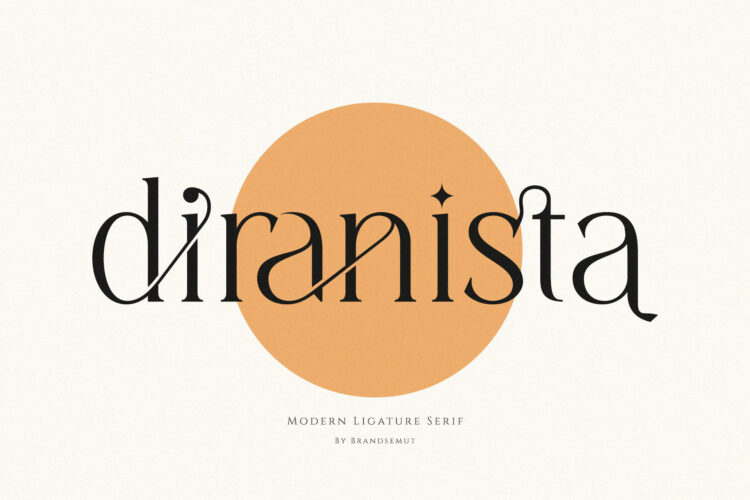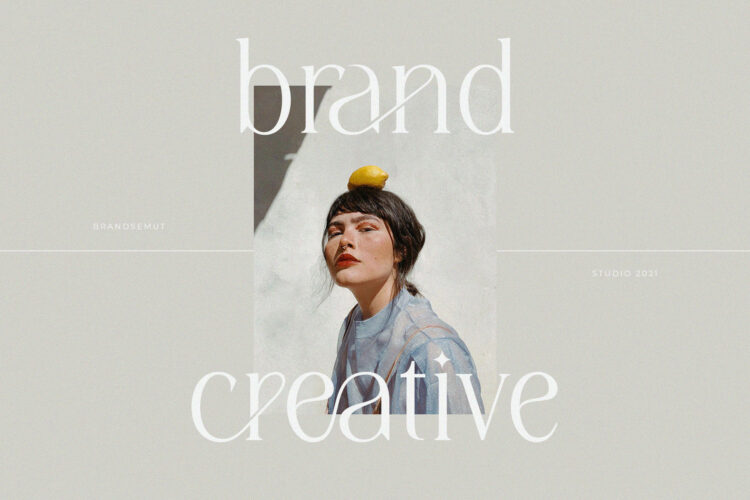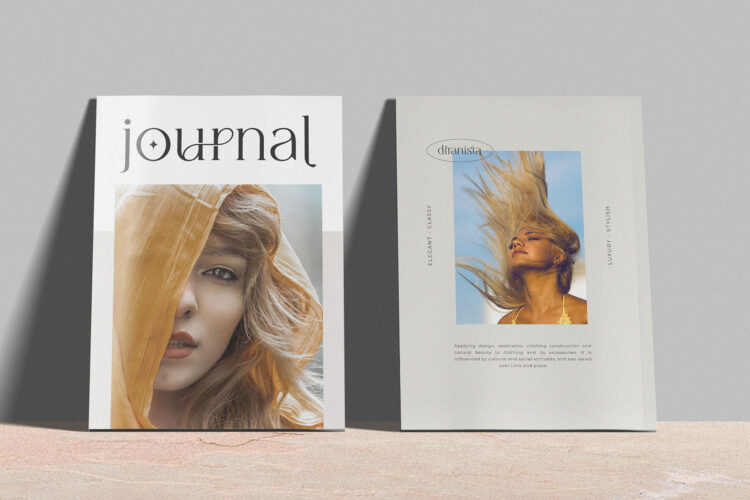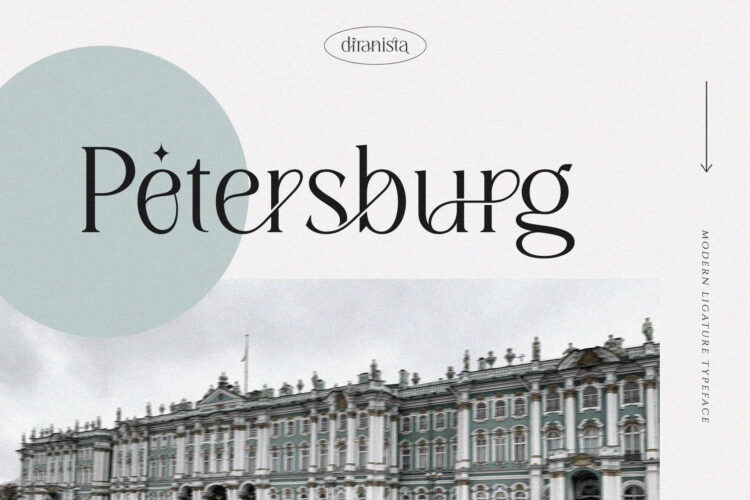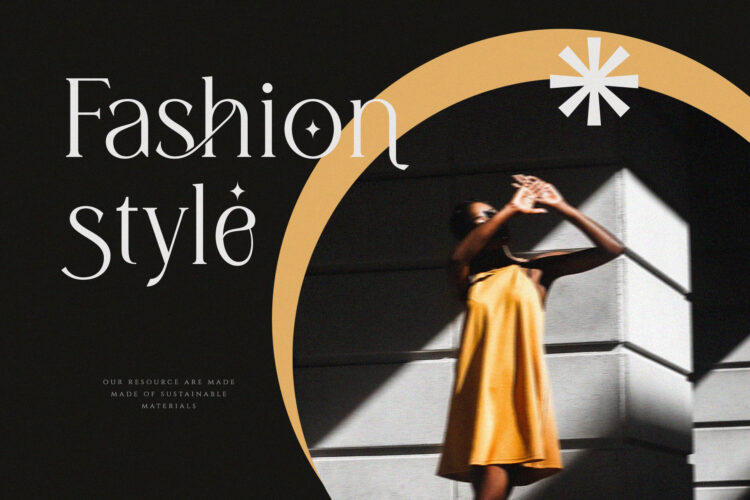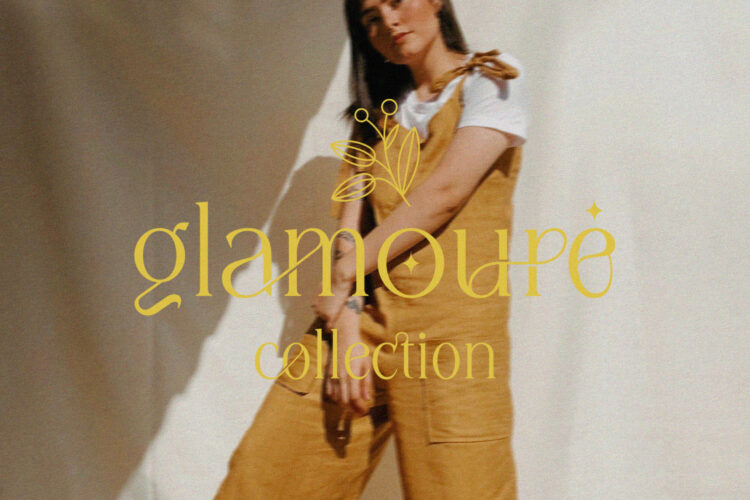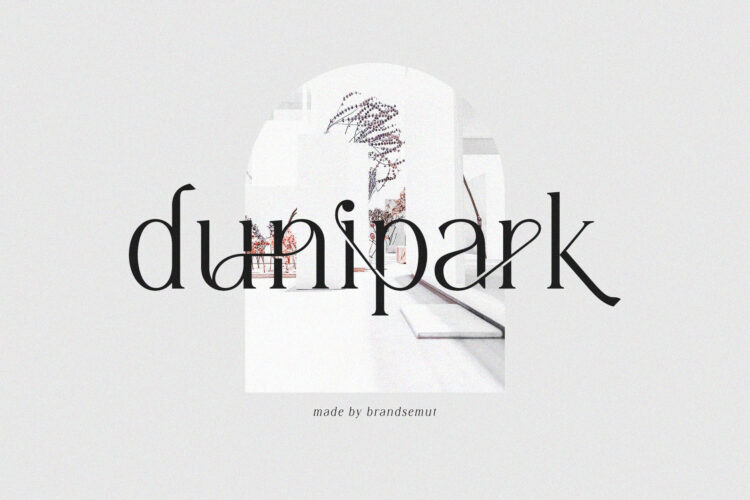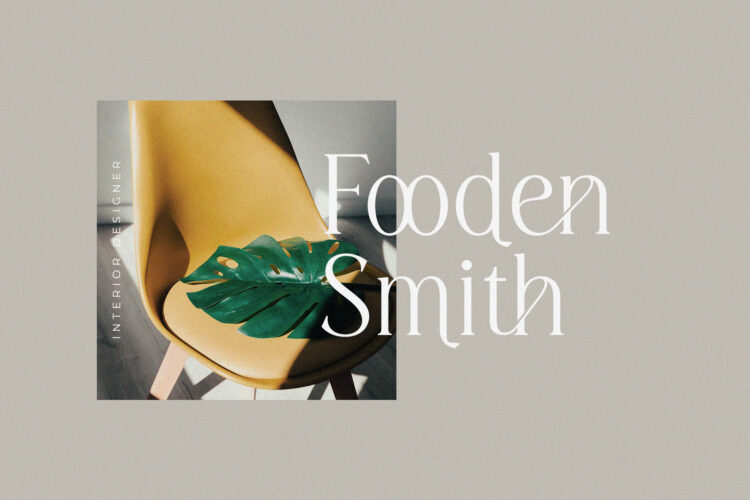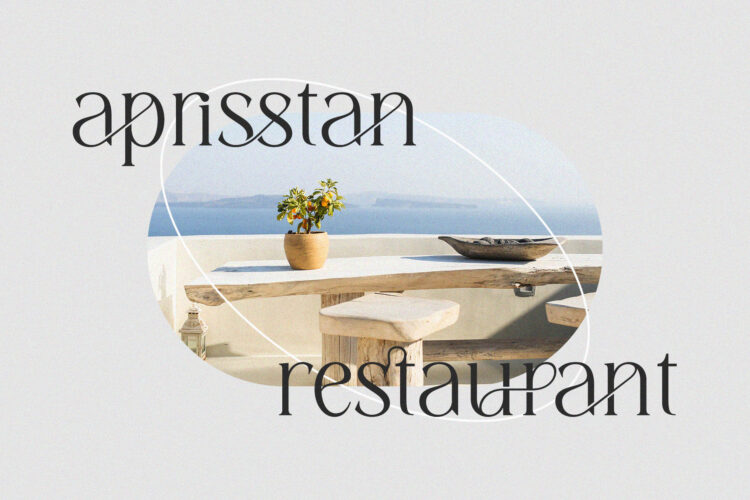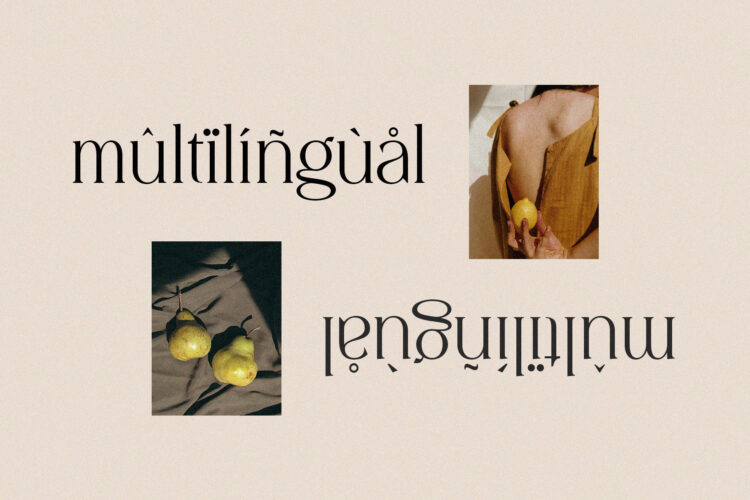
Introducing our new Diranista, Modern ligature typeface with Unique, Classy and Stylish. Is perfect for branding, logos, invitation, master heads, and more.
Diranista Features :
– Ligatures
– Multilanguage
– Alternates